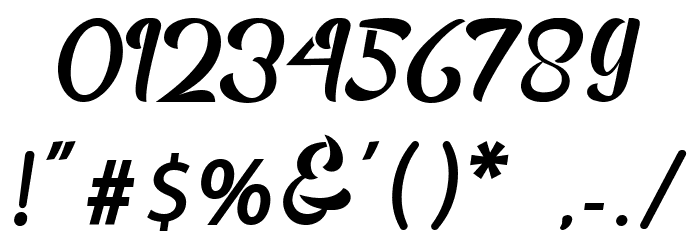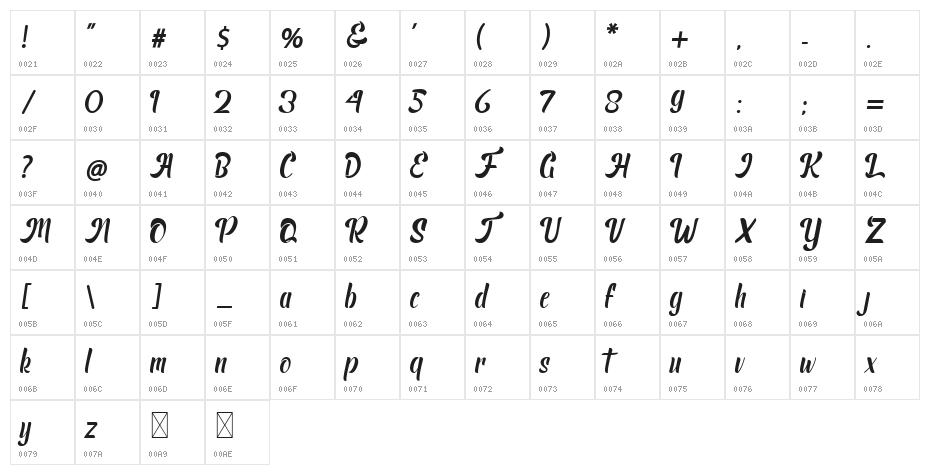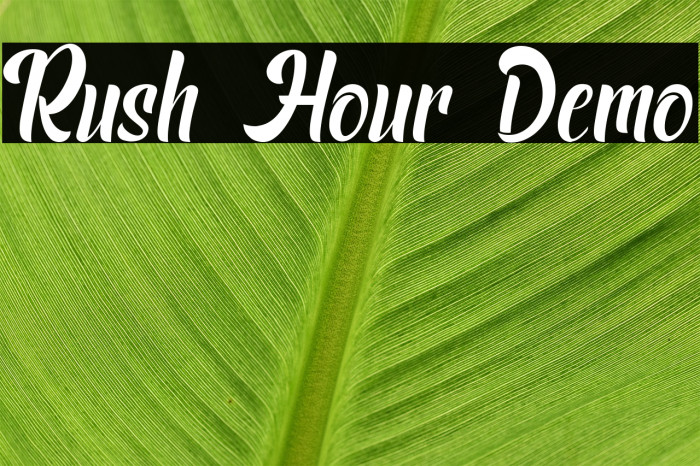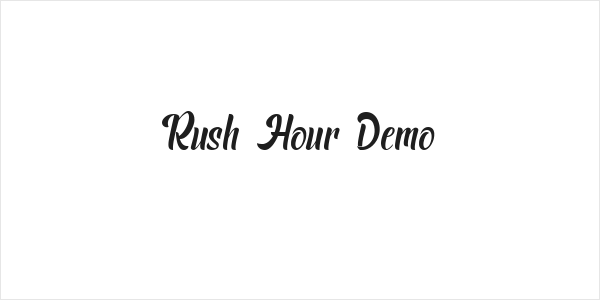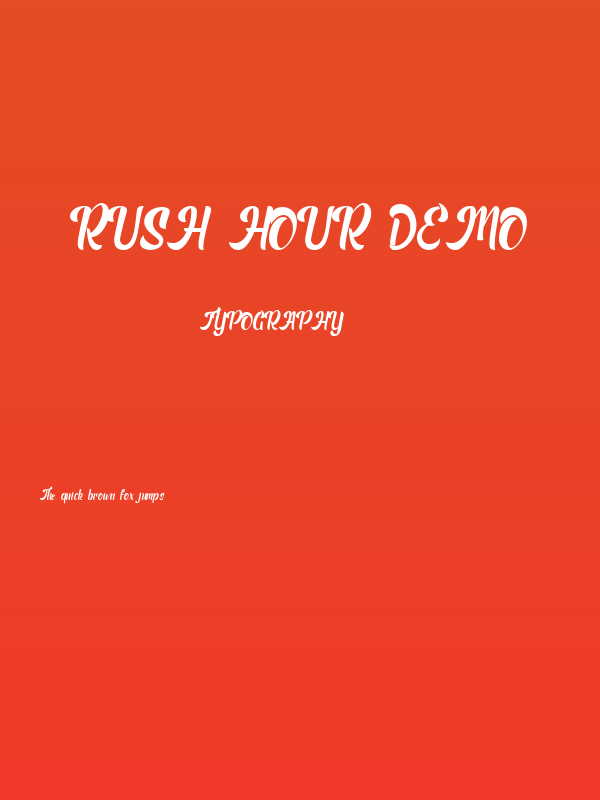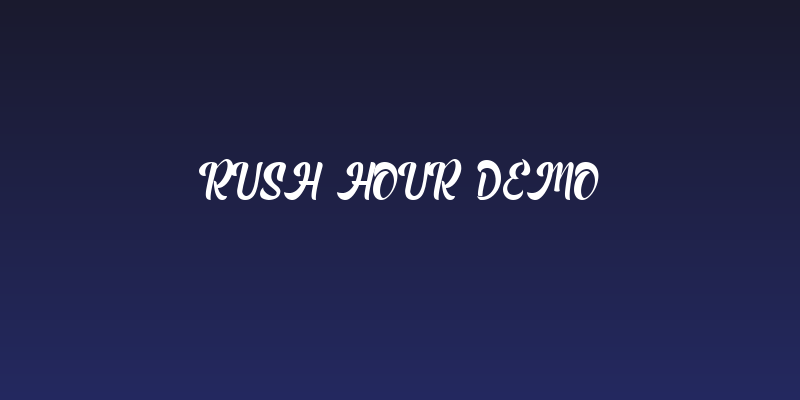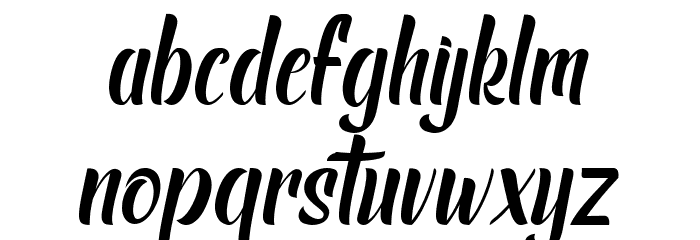
Rush Hour Demo Font
Rush Hour Demo Description
This font features a bold and dynamic script style with a modern flair. The characters are fluid and connected, giving a sense of movement and energy. The uppercase letters are particularly striking, with sweeping curves and elegant loops that add a touch of sophistication. The lowercase letters maintain a consistent flow, complementing the uppercase with their smooth transitions. Numbers and special characters are designed to match the overall aesthetic, ensuring a cohesive look across all text. The font's boldness makes it stand out, while its script nature adds a personal, handwritten feel.
| Proposed Projects | Ideal for branding projects, logos, invitations, and headlines that require a personal touch. |